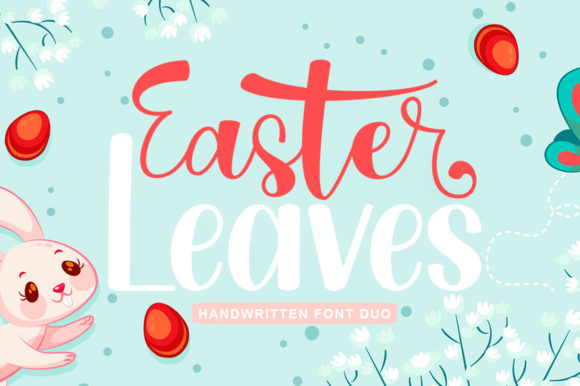
Looking for the perfect font for your prayer cards? Look no further than Easter Leaves Font Duo, created by rotterlabstudio. This modern calligraphy font family is the ideal choice for any project that requires elegance and natural beauty.
Easter Leaves Font Duo offers a variety of alternative styles, providing you with the perfect design elements to make your project stand out. With its natural, elegant look, this font is sure to impress anyone who sees it.
This font is suitable for a wide range of products, including invitations, product packaging, quotes, product design, labels, photography, watermarks, logos, and branding. Whether you're creating something for Valentine's Day, Mother's Day, a wedding, spring, or Christmas, Easter Leaves has got you covered.